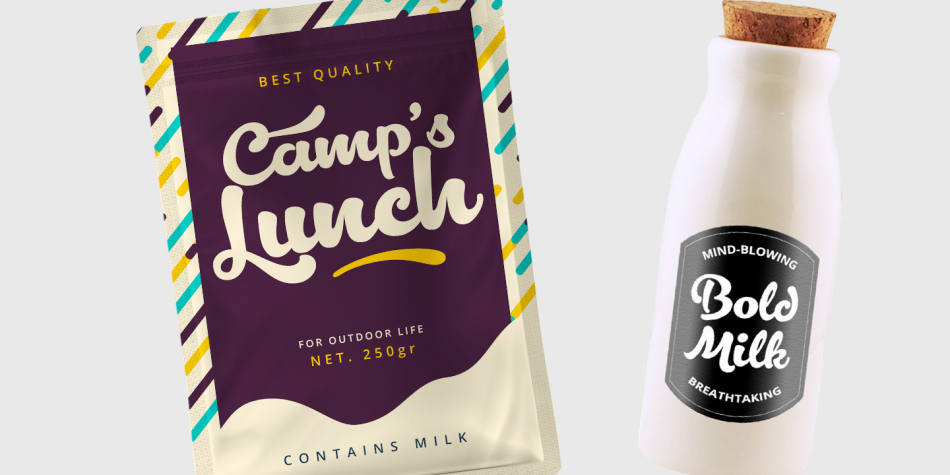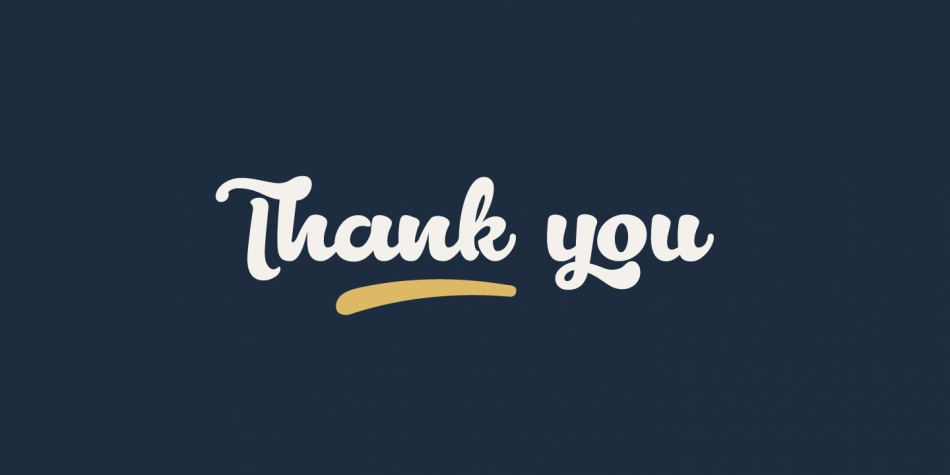
Designed by Nasir Udin, Lactosa is a dingbat and brush script font family. This typeface has three styles and was published by Desainer Males.
Say hello to Lactosa - A sweet script font that is bold and full of energy with delicious curves.
Lactosa comes with some alternate lowercase-letters for you to play and the complete set of lowercase-letter swashes that make your word looks sweet and stand out.
It has a fabulous selection of ligatures built in (consists of 60+ ligatures).
It’s especially created for branding and product packaging typography, also perfect for poster, business cards, headline, restaurant menus, and much more.
The opentype features Lactosa has: Stylistic Alternates, Swashes, Ligatures and Discretionary Ligatures.